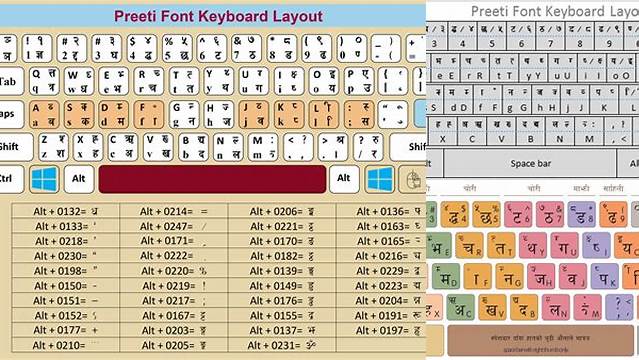
Preeti Font Keyboard: Free PDF Download Guide
Hey guys! Are you looking to download the Preeti font keyboard in PDF format for free? You've come to the right place! In this guide, we will dive deep into everything you need to know about Preeti font, how to download the keyboard layout, and even some tips and tricks for using it effectively. So, let's get started and unlock the world of Preeti font!
1. Understanding the Basics of Preeti Font
Before we jump into downloading the keyboard layout, let's first understand what Preeti font actually is. Preeti font is a widely used font for writing in the Nepali language. It's a popular choice for many Nepali users, especially in government offices, publications, and educational institutions. The font is known for its clear and readable style, making it a standard for Nepali typing. It's a legacy font, meaning it was one of the earliest fonts developed for Nepali, and despite newer technologies, it still holds a significant place in Nepali typing. So, if you're planning to work with Nepali text, understanding Preeti font is crucial.
2. Why is Preeti Font Still Relevant Today?
Even with the rise of Unicode fonts, you might wonder why Preeti font remains so relevant. Well, there are a few key reasons. Firstly, a large amount of existing Nepali content is written in Preeti font. This means that if you need to access or edit older documents, you'll need to be familiar with this font. Secondly, many older systems and software still rely on Preeti font, making it essential for compatibility. Finally, a lot of users are simply comfortable with the Preeti font layout, having used it for years. Its familiarity and widespread use in established documents and systems cement its continued importance in the Nepali digital landscape. It's like a classic – it never really goes out of style!
3. Finding the Right Preeti Font Keyboard Layout PDF
Now, let's get to the main event: finding the right Preeti font keyboard layout PDF. The good news is that there are many resources online where you can download this layout for free. However, you need to be careful to ensure you're downloading from a reputable source to avoid any malicious software or incorrect layouts. A simple Google search for "Preeti font keyboard layout PDF" will yield numerous results. Look for websites of established Nepali typing resources, educational institutions, or government portals. These are generally safer options. Remember, it's always better to be safe than sorry when downloading anything online! So, do your due diligence and make sure the source is trustworthy.
6. Setting Up Your Keyboard for Preeti Font
Installing the font is just the first step. Now, you need to set up your keyboard to actually type in Preeti font. This usually involves selecting the Preeti font in your word processor or other application. In most programs, you'll find a font selection dropdown menu, where you can scroll through the available fonts and choose "Preeti." Once you've selected Preeti font, you can start typing using the Preeti font keyboard layout as a guide. Remember, each key corresponds to a specific Nepali character, so you'll need to refer to the layout PDF to find the correct keys. It might take some practice, but you'll get the hang of it!
7. Mastering the Preeti Font Keyboard Layout
Learning the Preeti font keyboard layout might seem daunting at first, but with a little practice, you'll be typing fluently in no time! The key is to familiarize yourself with the layout and practice regularly. Start by typing simple words and phrases, and gradually work your way up to more complex sentences. Keep the keyboard layout PDF open as a reference, and don't be afraid to look at it frequently. There are also online typing tutors and games specifically designed for Preeti font, which can make the learning process more fun and engaging. Remember, practice makes perfect, so keep at it!
8. Tips and Tricks for Efficient Preeti Font Typing
Want to become a Preeti font typing pro? Here are a few tips and tricks to help you type more efficiently. First, try to memorize the most frequently used characters and their corresponding keys. This will save you time and effort in the long run. Second, use online typing tutors and games to improve your speed and accuracy. Third, consider using a Preeti font keyboard sticker or overlay to help you visualize the layout. Finally, don't be afraid to experiment with different typing techniques to find what works best for you. With these tips, you'll be typing like a pro in no time!
9. Common Mistakes to Avoid When Using Preeti Font
When learning to type in Preeti font, there are a few common mistakes that you should try to avoid. One common mistake is confusing similar-looking characters. Preeti font has many characters that look alike, so it's important to pay close attention to the keyboard layout. Another mistake is using the wrong key combinations for certain characters. Some Nepali characters require pressing multiple keys simultaneously, so make sure you're using the correct combination. Finally, don't rely solely on muscle memory. Always double-check your typing to ensure accuracy. By avoiding these common mistakes, you can improve your Preeti font typing skills significantly.